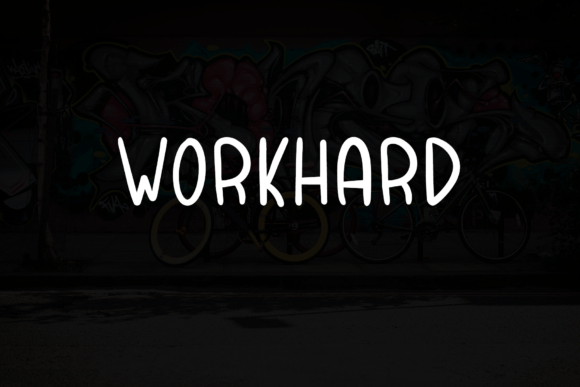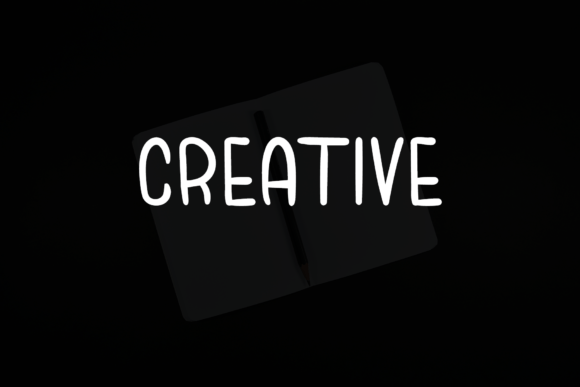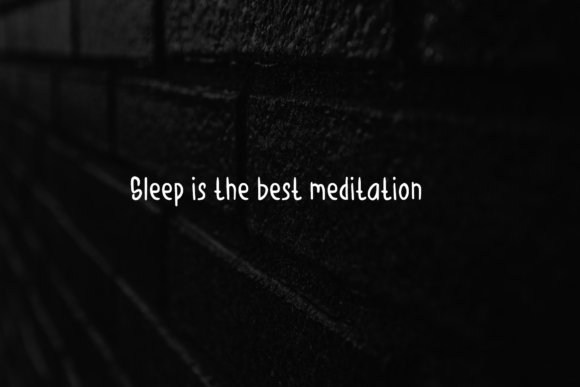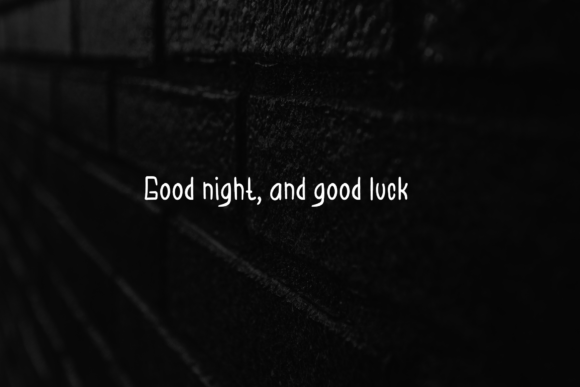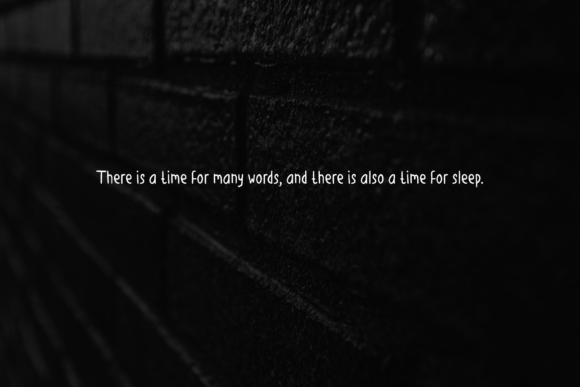
Introducing Handline Font: The Perfect Handwritten Style for Your Design Needs
Are you looking for a font that adds a personal touch to your designs? Look no further than Handline Font, a beautiful handwritten font inspired by notes. With its casual and playful look, Handline Font is perfect for a wide range of design projects, from handwritten notes and greeting cards to branding, advertising, and more.
The Inspiration Behind Handline Font
Handline Font was created with the intention of capturing the essence of handwritten notes. The font’s designer wanted to create a font that would evoke a sense of warmth and personality, making it perfect for designs that require a personal touch. The result is a font that looks like it was written with a pen, complete with subtle imperfections and variations in line width.
Characteristics of Handline Font
So, what makes Handline Font so special? Here are a few of its key characteristics:
- Handwritten style: Handline Font is a true handwritten font, with each letter and number carefully crafted to resemble handwriting.
- Casual and playful: The font has a relaxed, casual feel that’s perfect for designs that need to be friendly and approachable.
- Versatile: Handline Font can be used for a wide range of design projects, from branding and advertising to packaging and more.
Uses for Handline Font
So, what can you use Handline Font for? The possibilities are endless, but here are a few ideas to get you started:
- Handwritten notes: Use Handline Font to create beautiful, handwritten notes that add a personal touch to your correspondence.
- Greeting cards: Create sweet and sentimental greeting cards with Handline Font, perfect for birthdays, holidays, and more.
- Branding: Use Handline Font to add a personal touch to your branding, including logos, packaging, and marketing materials.
- Advertising: Create eye-catching ads with Handline Font, perfect for social media, print ads, and more.
- Book and cover titles: Use Handline Font to create beautiful and eye-catching titles for your book or magazine cover.
- Special events: Create invitations, flyers, and other materials for special events, such as weddings, parties, and more.
- Headlines: Use Handline Font to create bold and eye-catching headlines for your blog, website, or social media channels.
- Clothing and apparel: Create custom t-shirts, hoodies, and other clothing items with Handline Font.
Why Choose Handline Font?
So, why should you choose Handline Font for your design needs? Here are a few reasons:
- Unique and eye-catching: Handline Font is a unique and eye-catching font that will help your designs stand out from the crowd.
- Easy to read: Despite its handwritten style, Handline Font is easy to read and understand, making it perfect for body text and headlines.
- Versatile: Handline Font can be used for a wide range of design projects, making it a great addition to any designer’s toolkit.
- High-quality: Handline Font is a high-quality font that’s been carefully crafted to ensure that it looks great in any design.
Tips for Using Handline Font
Here are a few tips for using Handline Font in your designs:
- Use it sparingly: Handline Font is a bold and eye-catching font, so use it sparingly to avoid overwhelming your design.
- Pair it with other fonts: Handline Font pairs well with other fonts, so don’t be afraid to experiment with different combinations.
- Experiment with colors: Handline Font looks great in a variety of colors, so experiment with different colors to find the one that works best for your design.
In conclusion, Handline Font is a beautiful and versatile handwritten font that’s perfect for a wide range of design needs. With its casual and playful look, Handline Font is sure to add a personal touch to your designs. So why not give it a try and see what you can create?